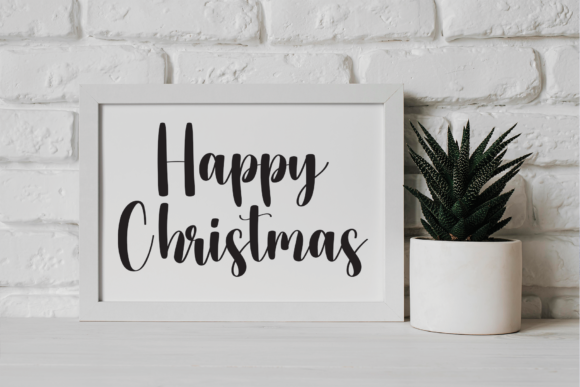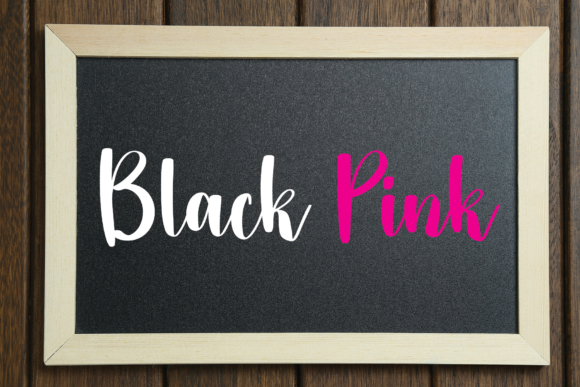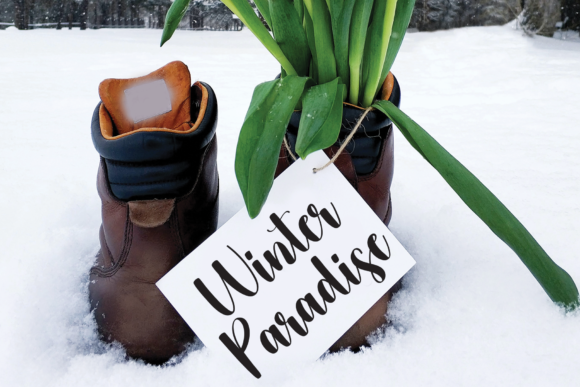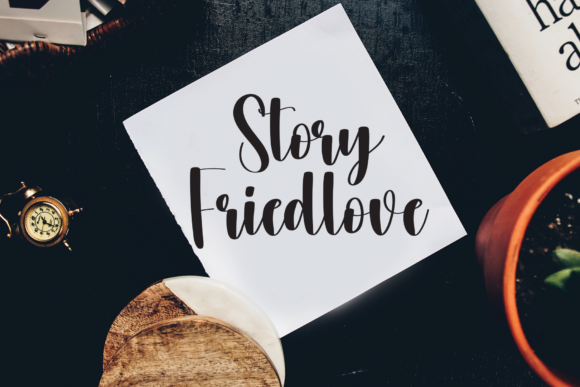
December is Coming Font: Elevate Your Creativity with Elegance
Are you on the lookout for a font that adds a touch of magic and elegance to your creative projects? Look no further than the December is Coming Font. This beautiful script font is carefully crafted to bring a sense of sophistication and whimsy to your designs, making it perfect for a wide range of applications, from Instagram posts to DIY calligraphy projects.
The Story Behind December is Coming Font
December is Coming Font is more than just a font – it’s a tool for creative expression. With its intricate details and flowing script, this font is designed to inspire artists, designers, and crafters to push the boundaries of their imagination. Whether you’re working on a personal project or a professional assignment, December is Coming Font is the perfect choice for anyone looking to add a touch of elegance and sophistication to their work.
Key Features of December is Coming Font
- Magical Script Font: December is Coming Font is a carefully crafted script font with a touch of magic and whimsy.
- Elegant and Sophisticated: With its intricate details and flowing script, this font is perfect for adding a touch of elegance and sophistication to your designs.
- Versatile: Whether you’re working on Instagram posts, calligraphy projects, or any other creative endeavor, December is Coming Font is the perfect choice.
December is Coming Font is a versatile font that can be used in a wide range of applications, including:
- Instagram Posts: Add a touch of elegance and sophistication to your Instagram posts with December is Coming Font.
- Calligraphy Projects: Use this font to create beautiful calligraphy pieces for DIY projects or professional assignments.
- Branding and Marketing: December is Coming Font is perfect for creating professional-looking branding and marketing materials, such as logos, brochures, and business cards.
- Crafting and Scrapbooking: Add a personal touch to your crafting and scrapbooking projects with this beautiful script font.
- Use for Headings and Titles: This font is perfect for headings and titles, adding a touch of elegance and sophistication to your designs.
In conclusion, December is Coming Font is a magical script font that is sure to elevate your creativity and add a touch of elegance to your designs. With its intricate details and flowing script, this font is perfect for designers and crafters looking to push the boundaries of their imagination. Whether you’re working on Instagram posts, calligraphy projects, or any other creative endeavor, December is Coming Font is the perfect choice.